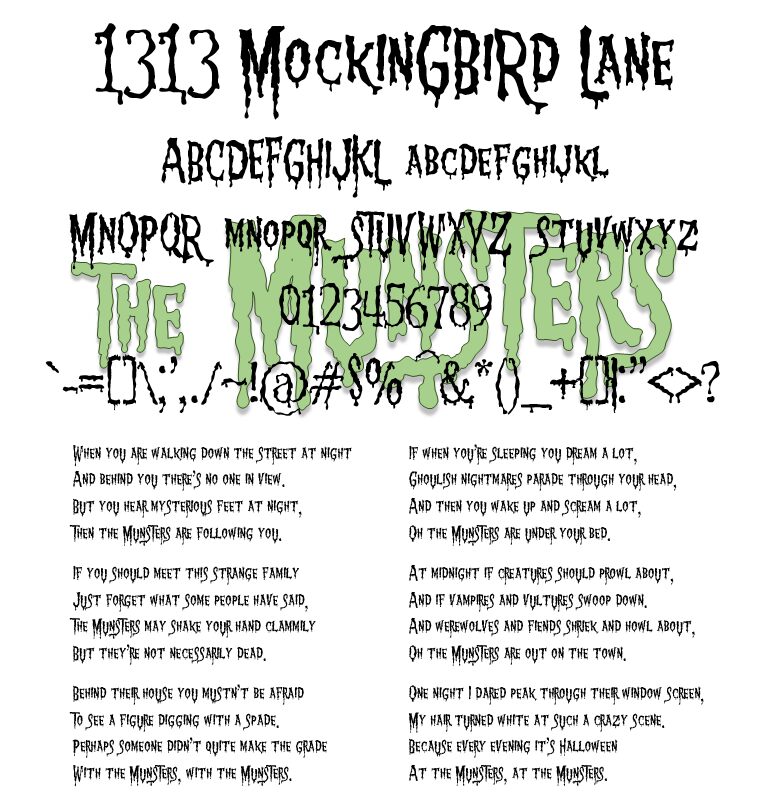
1313 MockingbiRd Lane
Note, I am not affiliated with The Munsters in any way - based loosely on the logo from the opening credits from the pilot episode (in color!).